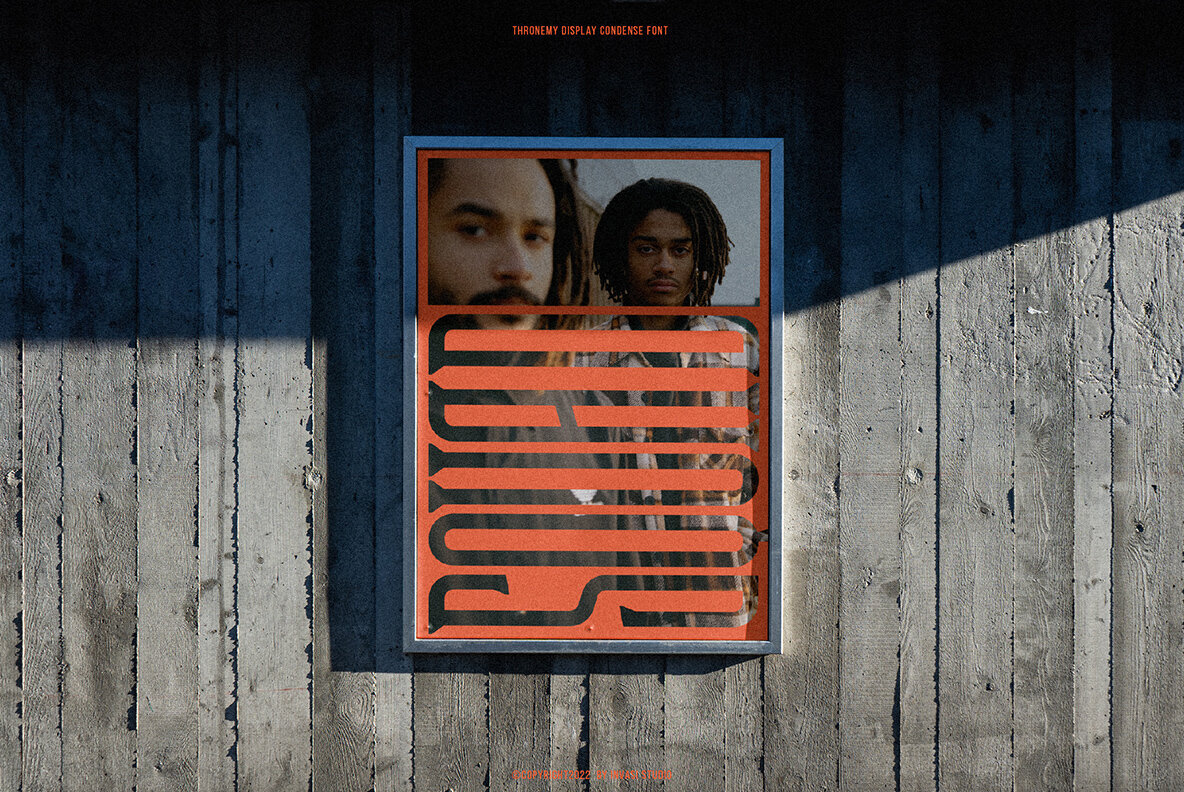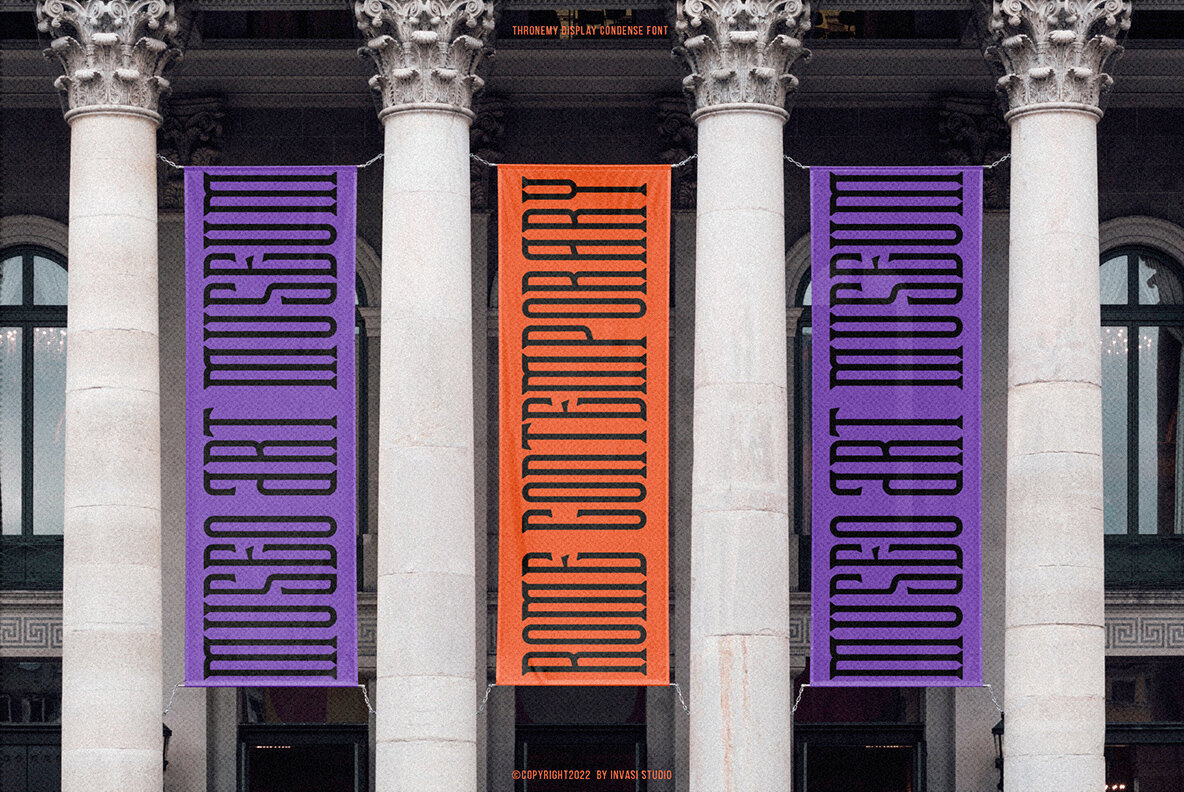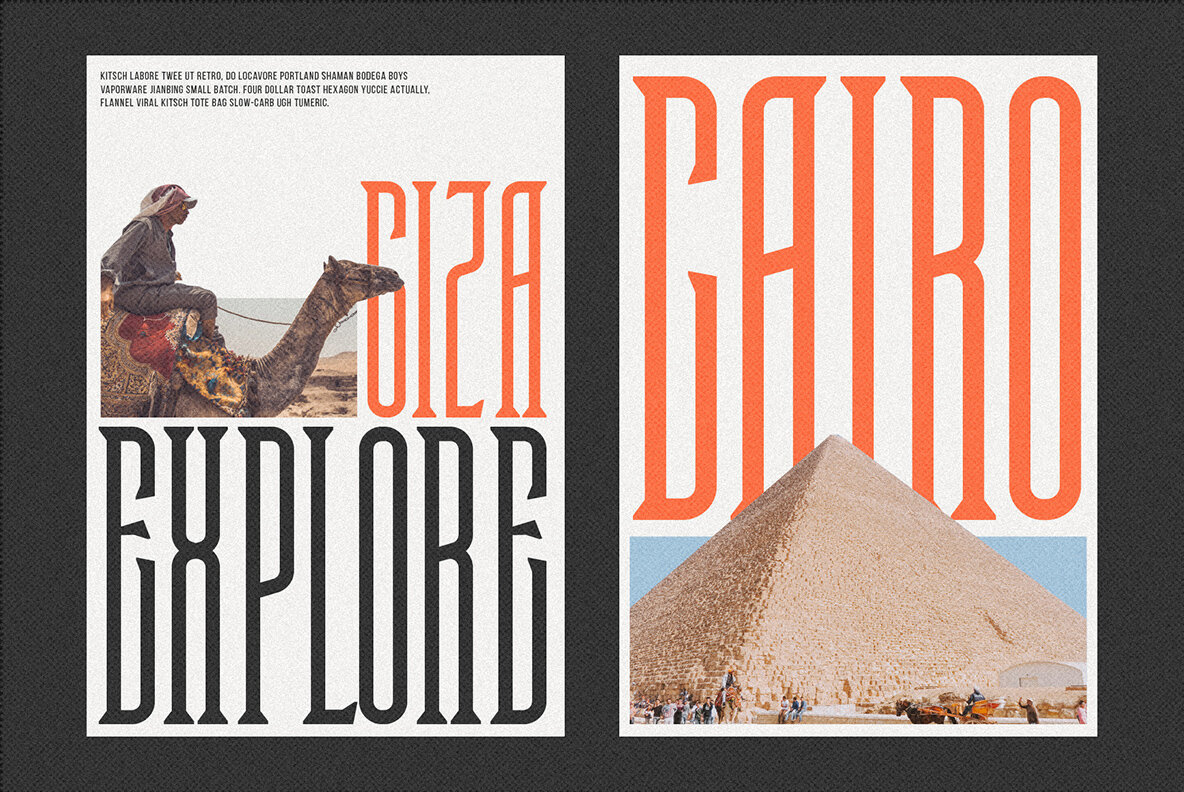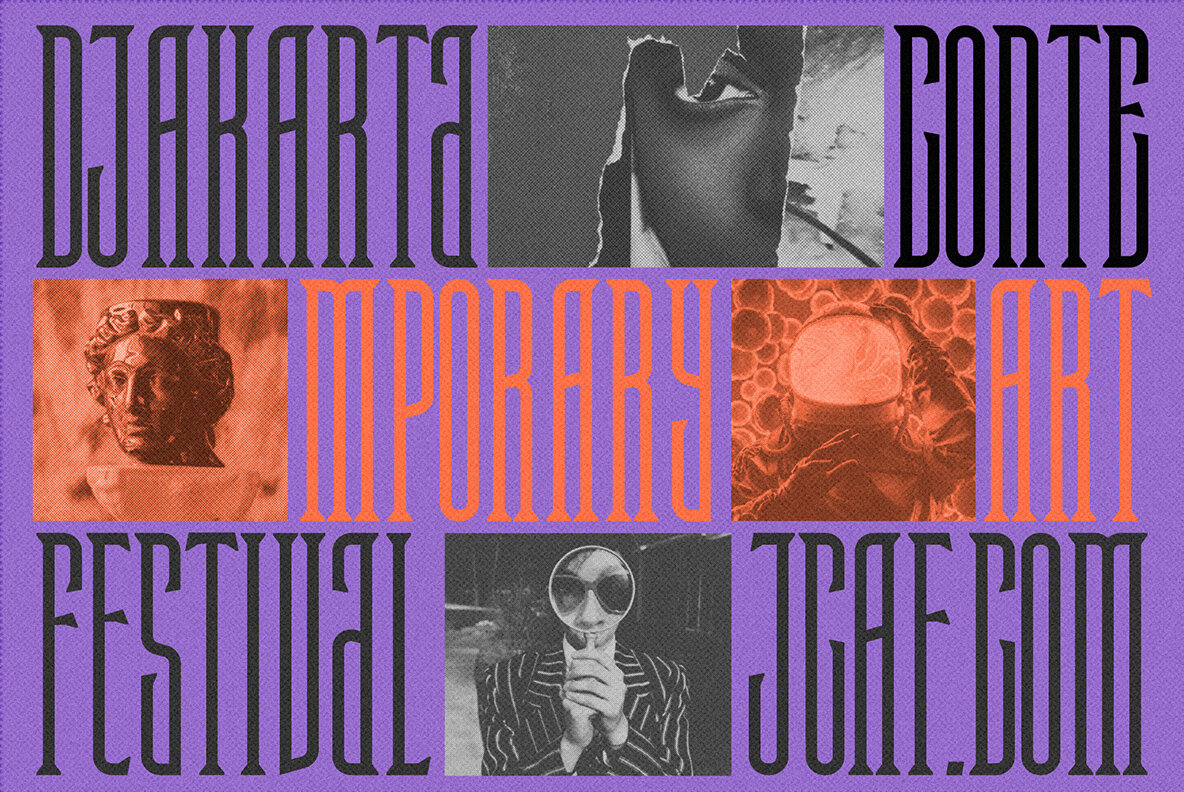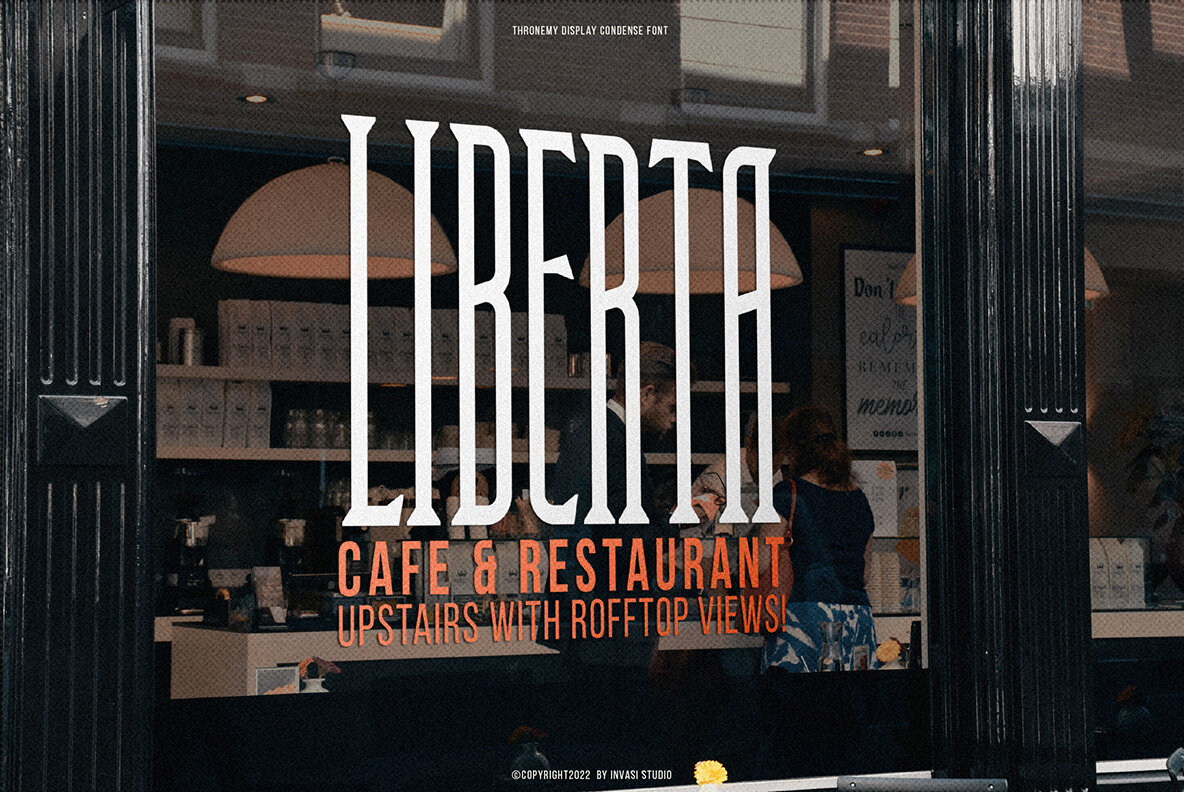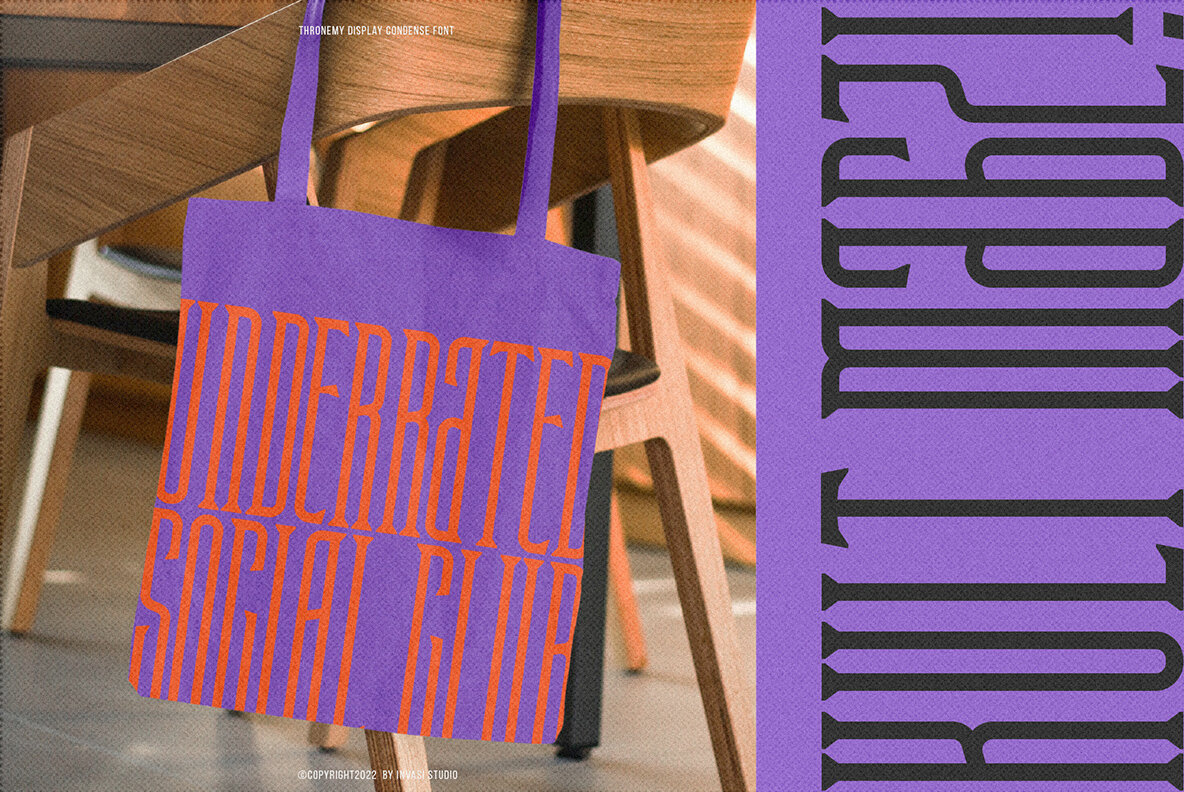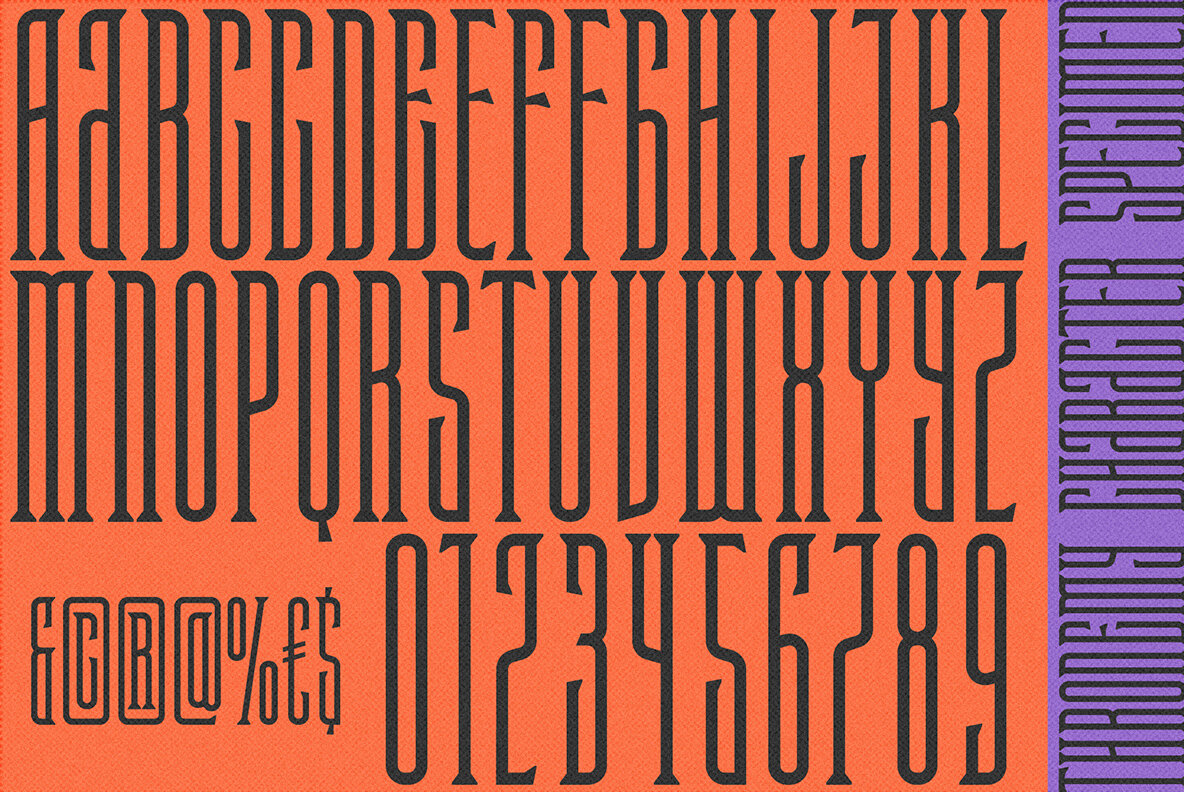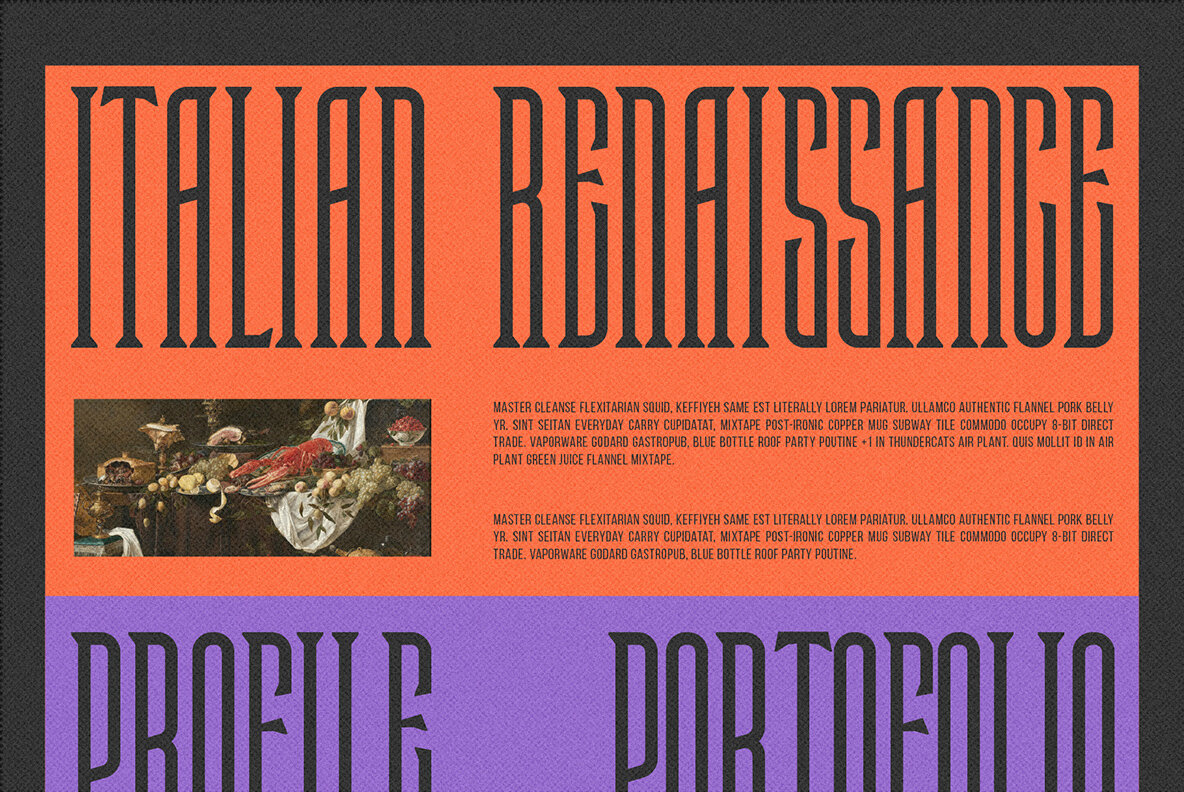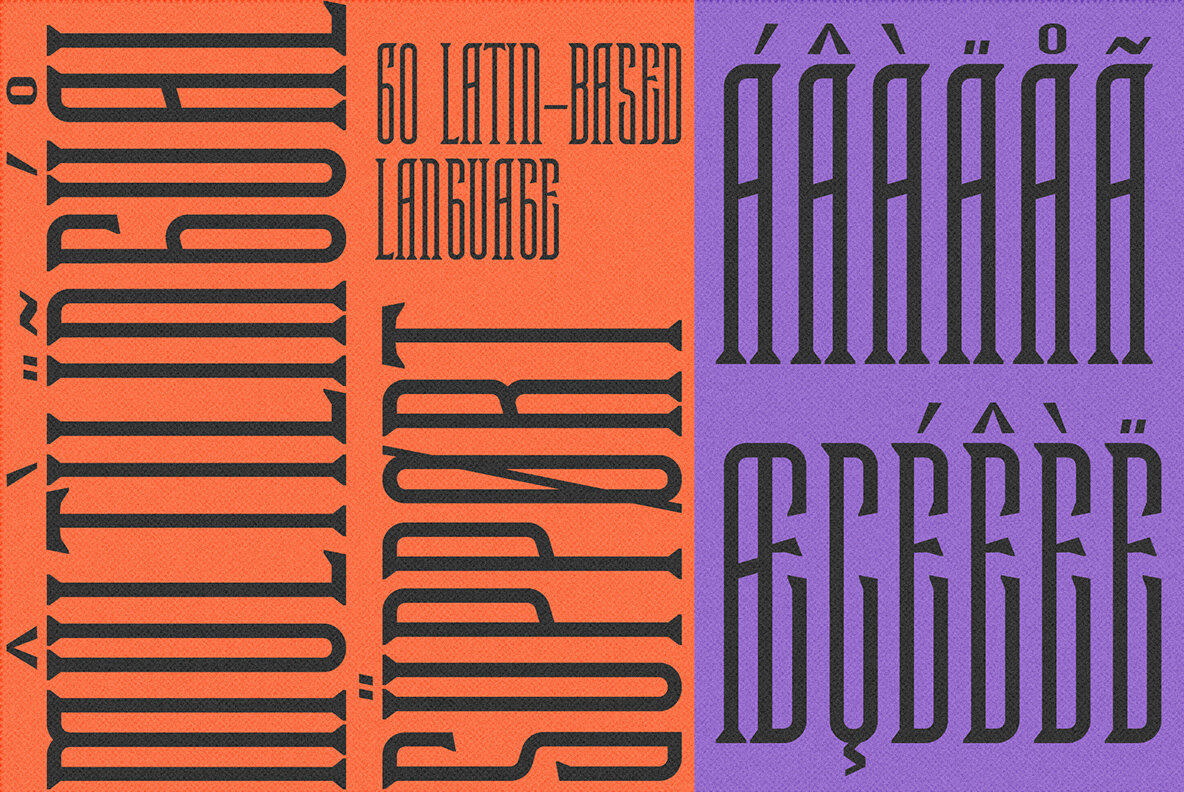
Thronemy Font
Thronemy Regular
This elegant condensed serif display typeface is perfect for designs that require a touch of class and nostalgia. Inspired by ancient concepts and the nostalgic classic era, Thronemy Font adds a timeless and sophisticated look to any design project.
The condensed serif design of Thronemy Font is both elegant and easy to read, making it perfect for headlines, titles, and other design elements that need to be easily understood. Plus, its retro style is perfect for creating logos and headings that will make your designs stand out from the rest.
Thronemy Font is a versatile font that can be used in a variety of design projects such as invitations, posters, book covers, packaging, magazine layouts, and more. No matter what your project requires, Thronemy Font can help you achieve a timeless and sophisticated design that will leave a lasting impression.